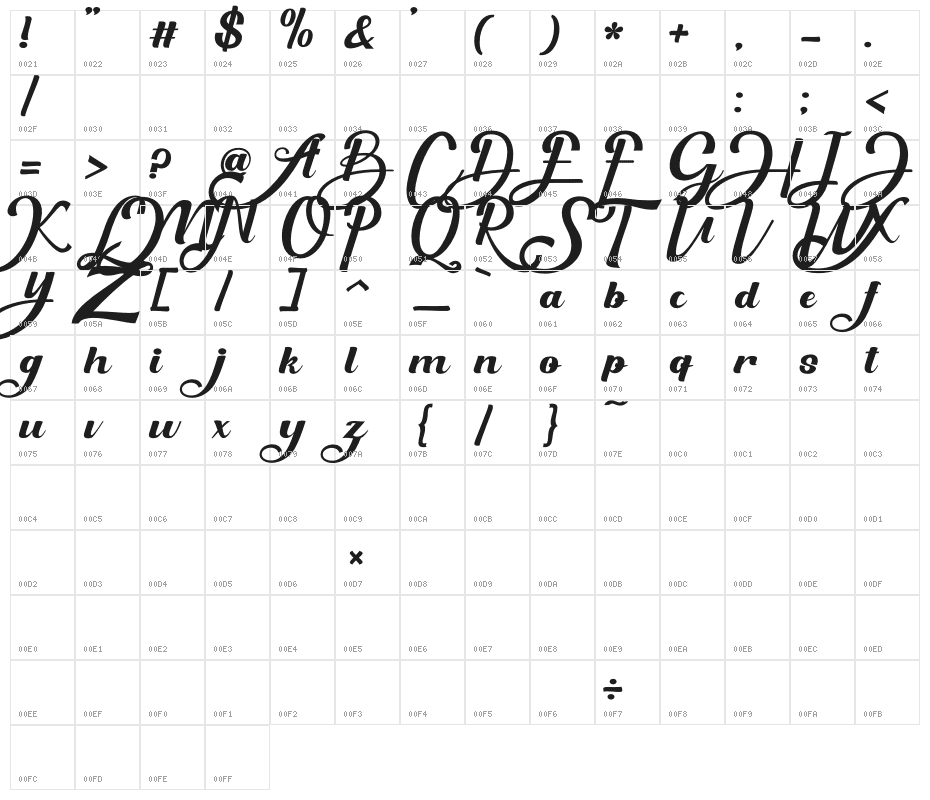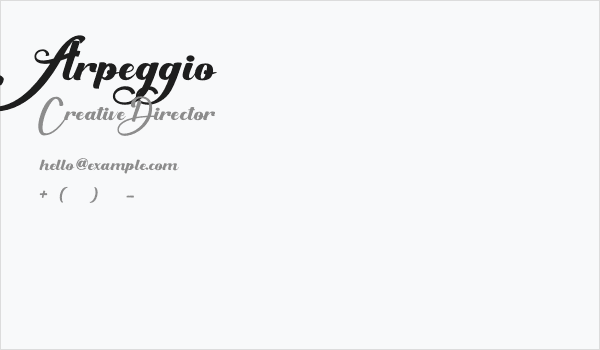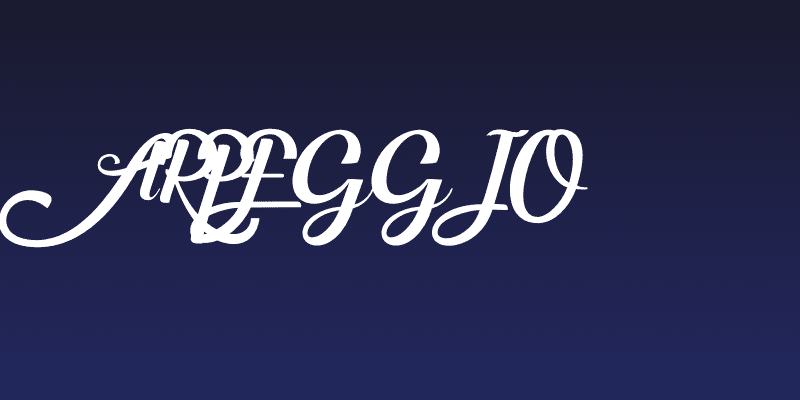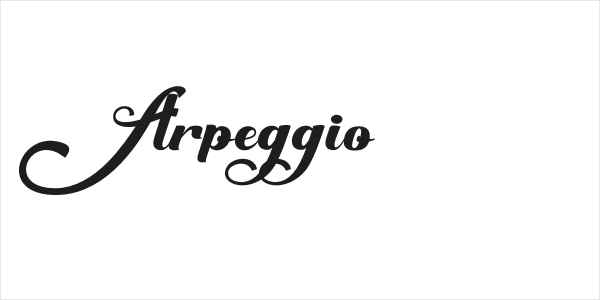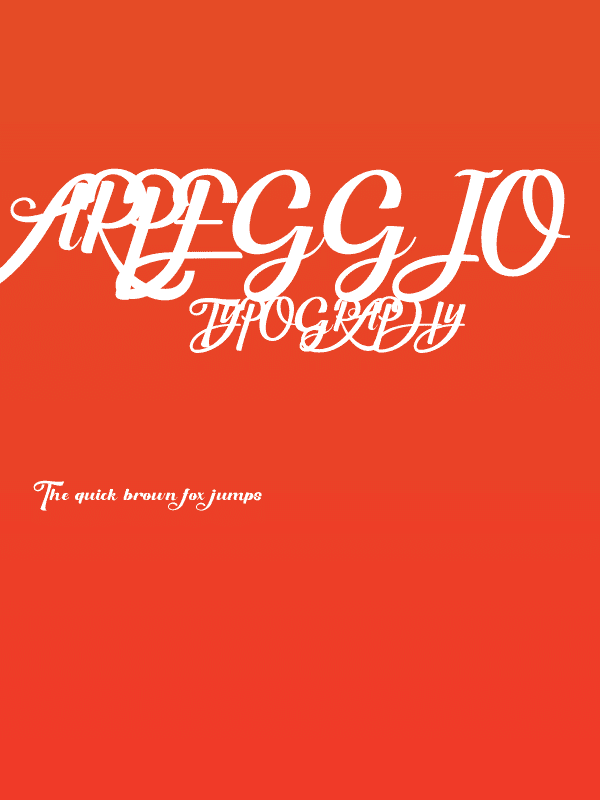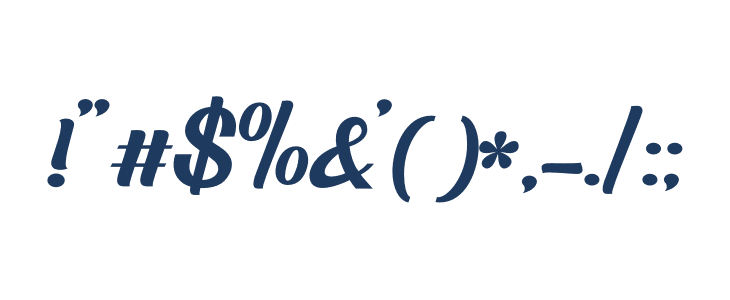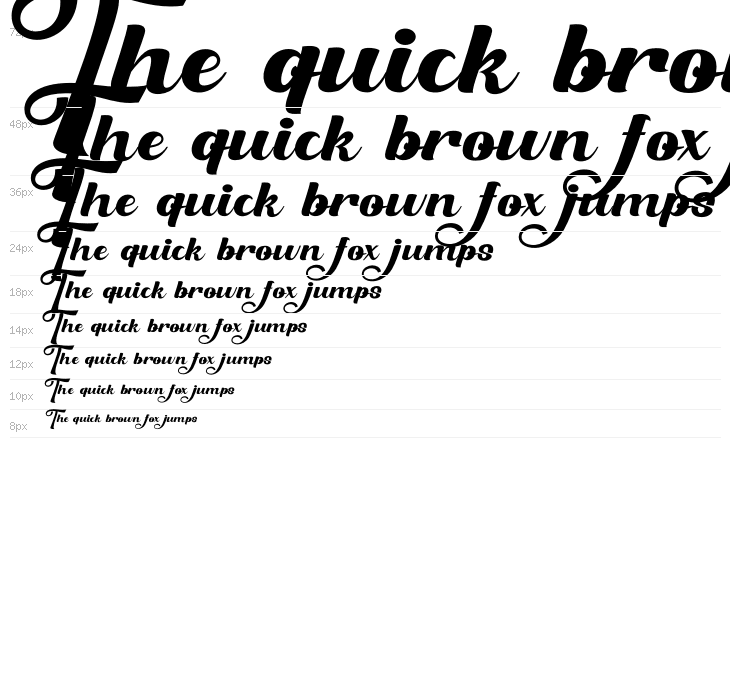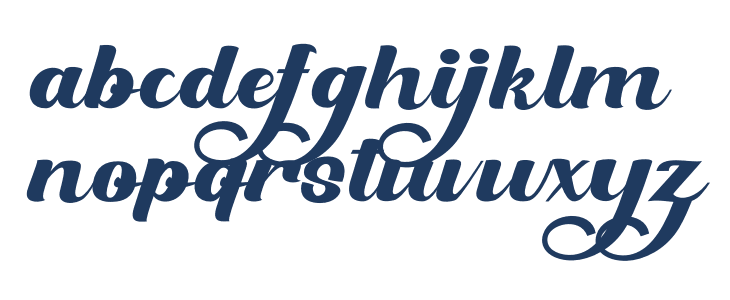
Arpeggio Font
Arpeggio Description
This font features an elegant and flowing script style, characterized by its smooth, cursive letterforms. The uppercase letters are ornate, with intricate loops and flourishes that give a sense of sophistication and grace. The lowercase letters maintain a consistent flow, connecting seamlessly to create a harmonious appearance. The numerals and special characters are designed to complement the overall script style, adding a touch of elegance to any text. This font is ideal for projects that require a personal, handwritten touch, while still maintaining a high level of readability.
| Overall Style | Elegant, Decorative |
| Proposed Projects | Wedding invitations, greeting cards, branding materials, and elegant packaging designs. |